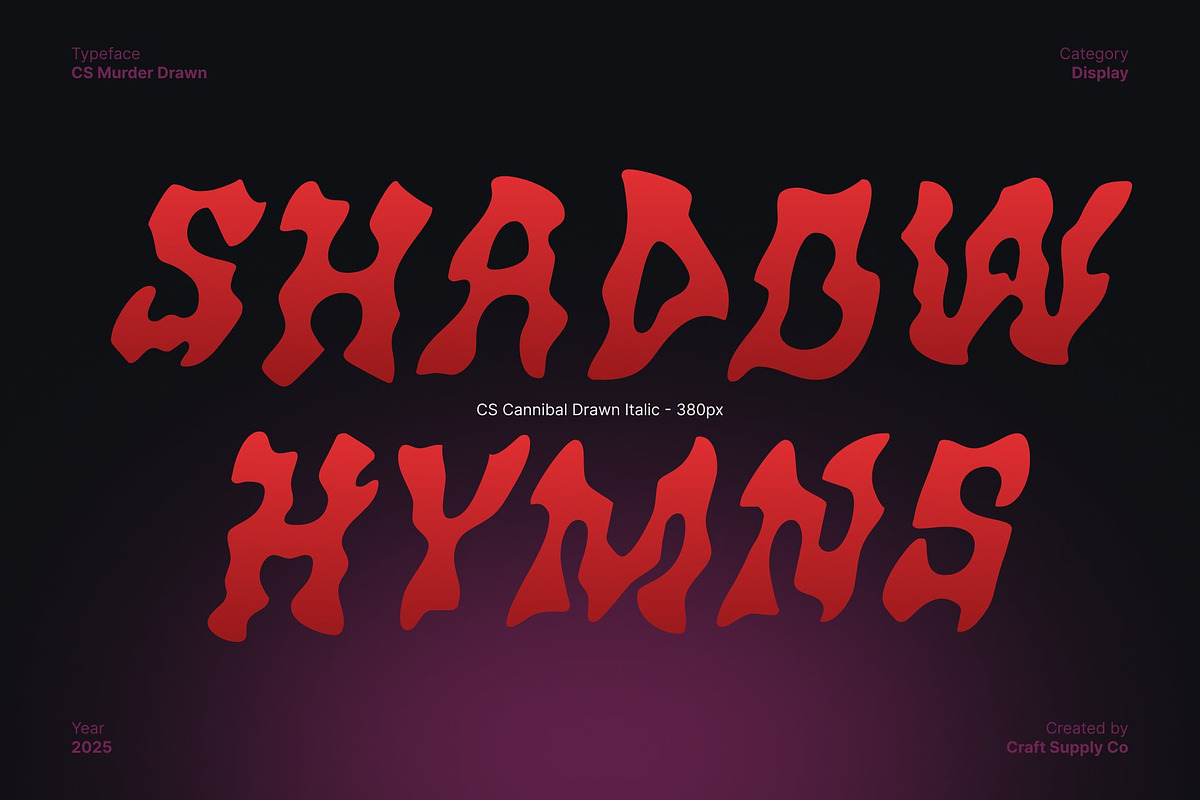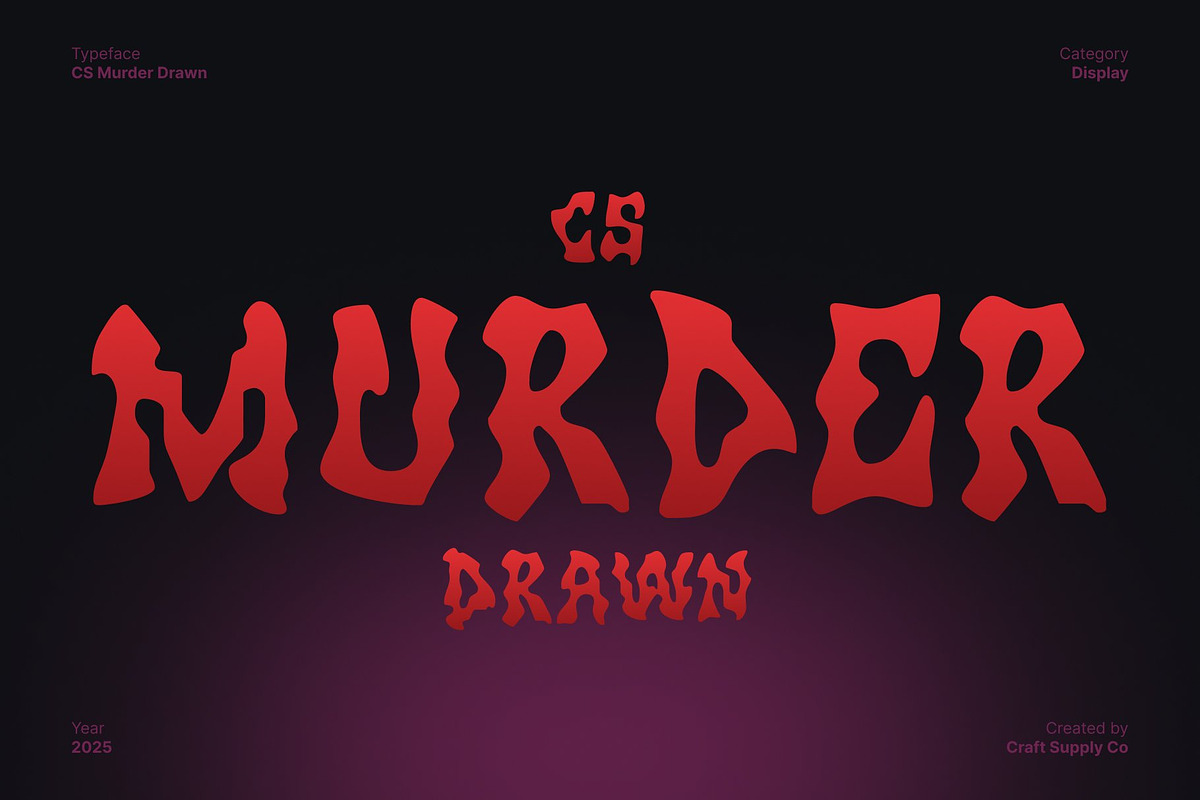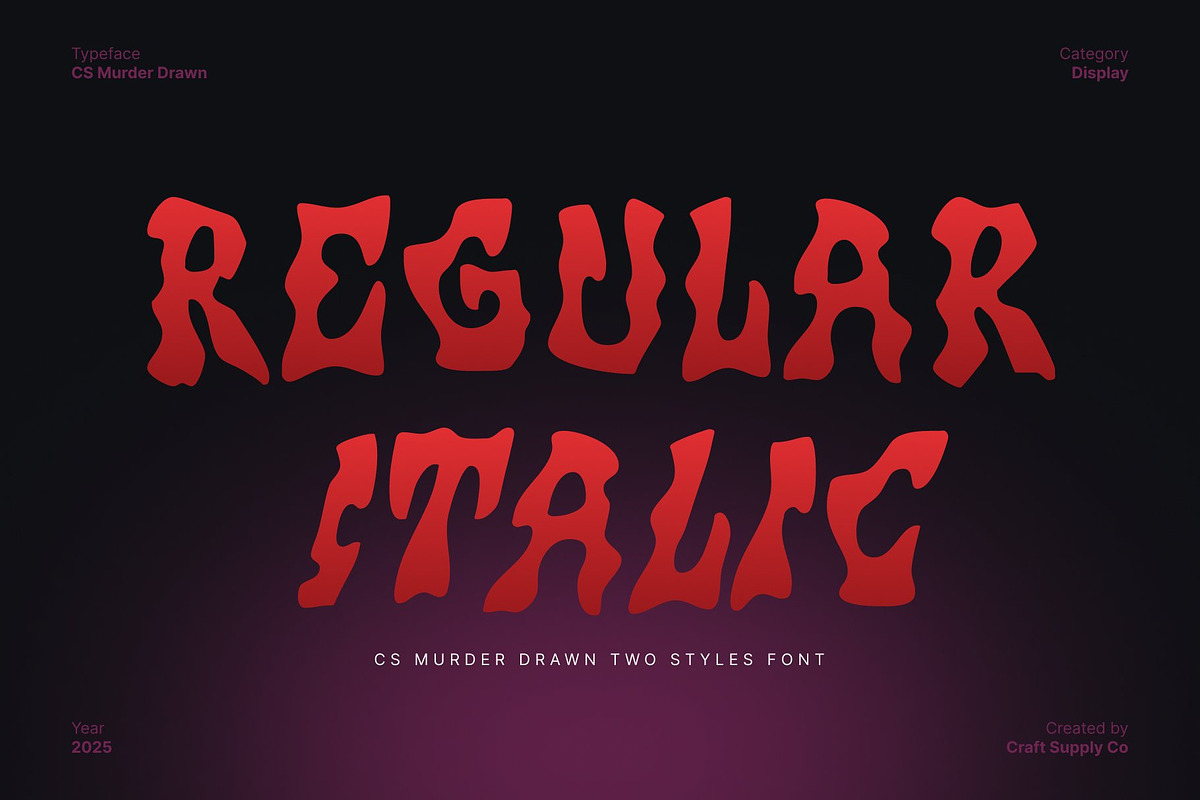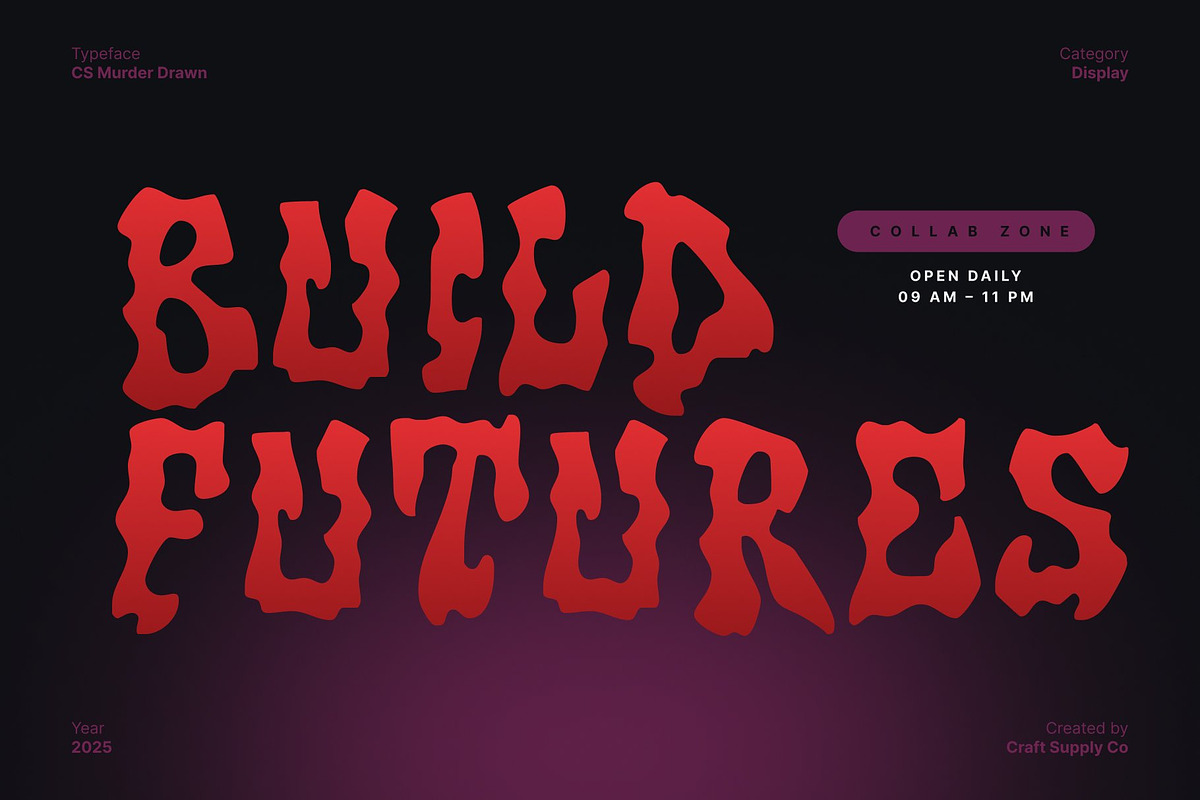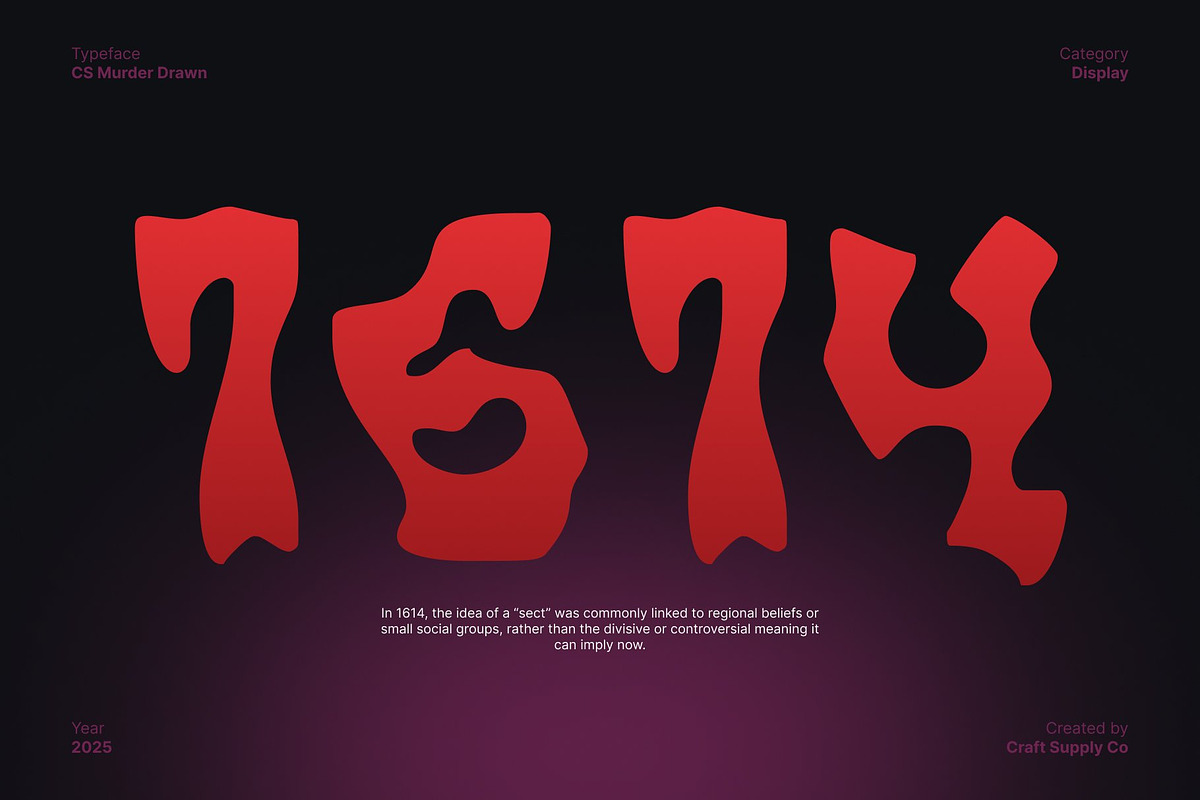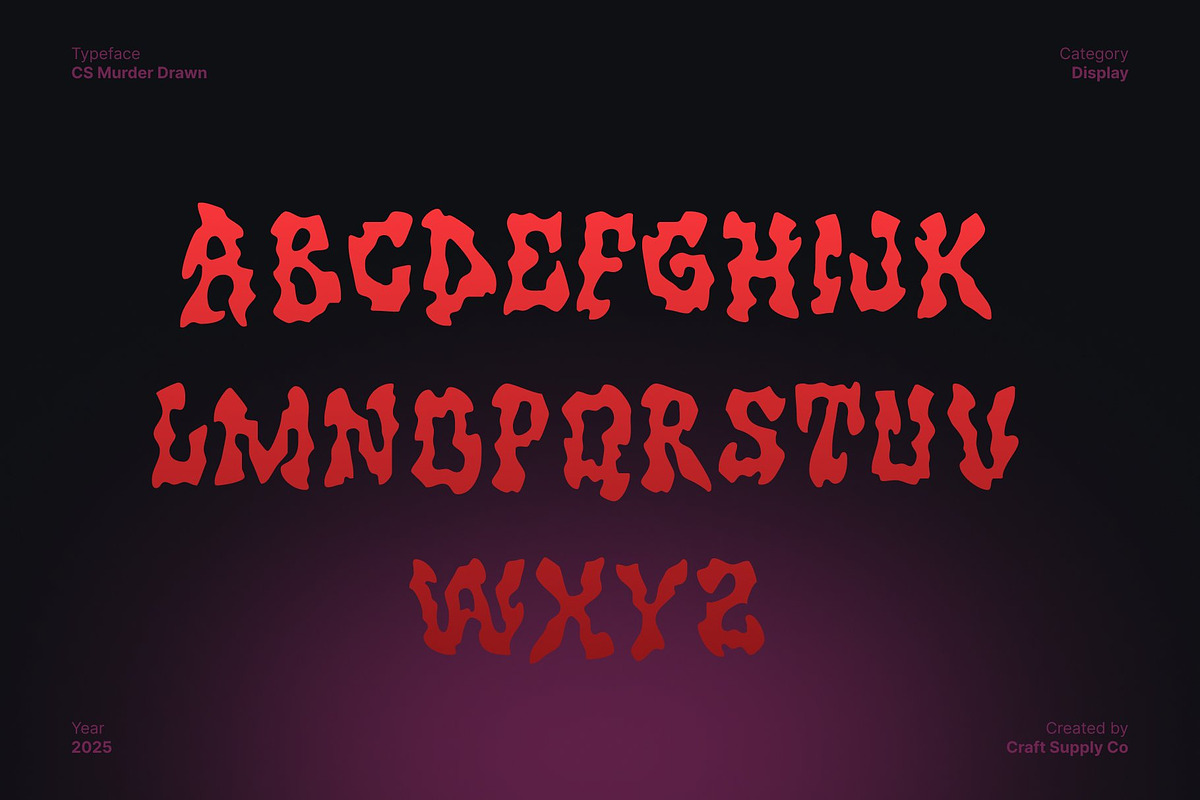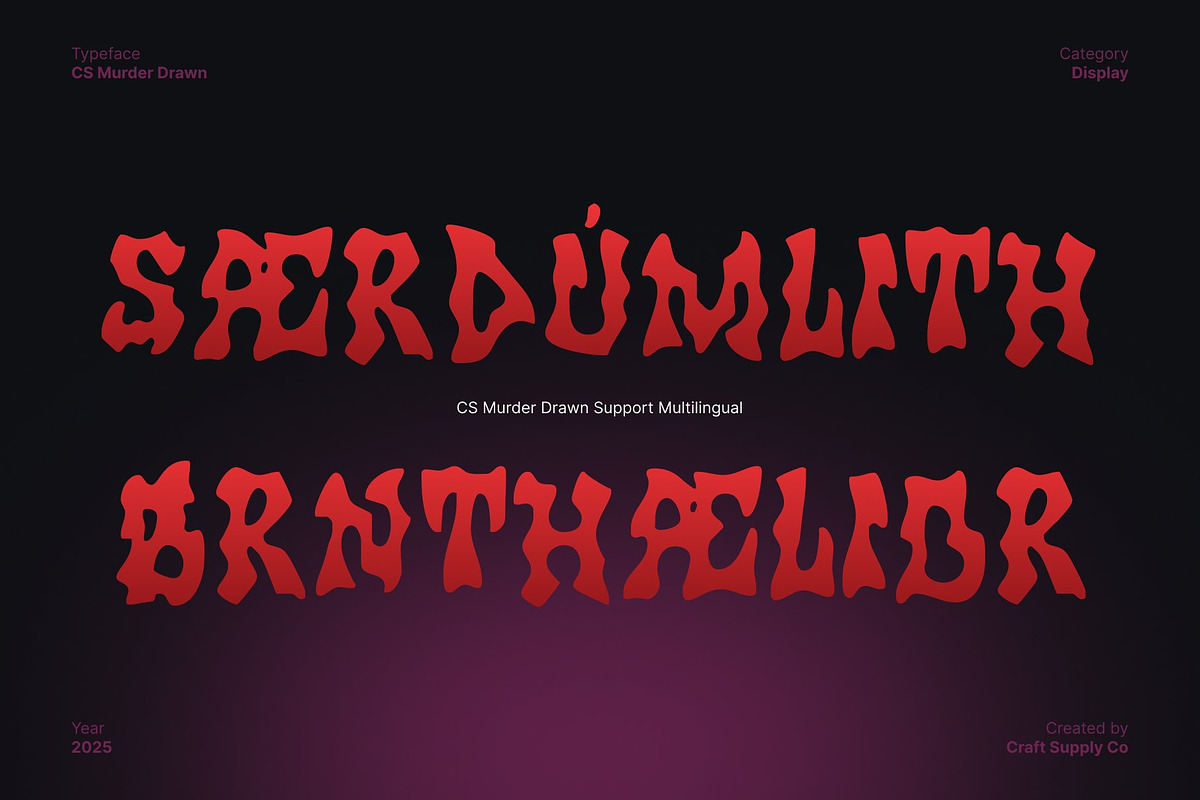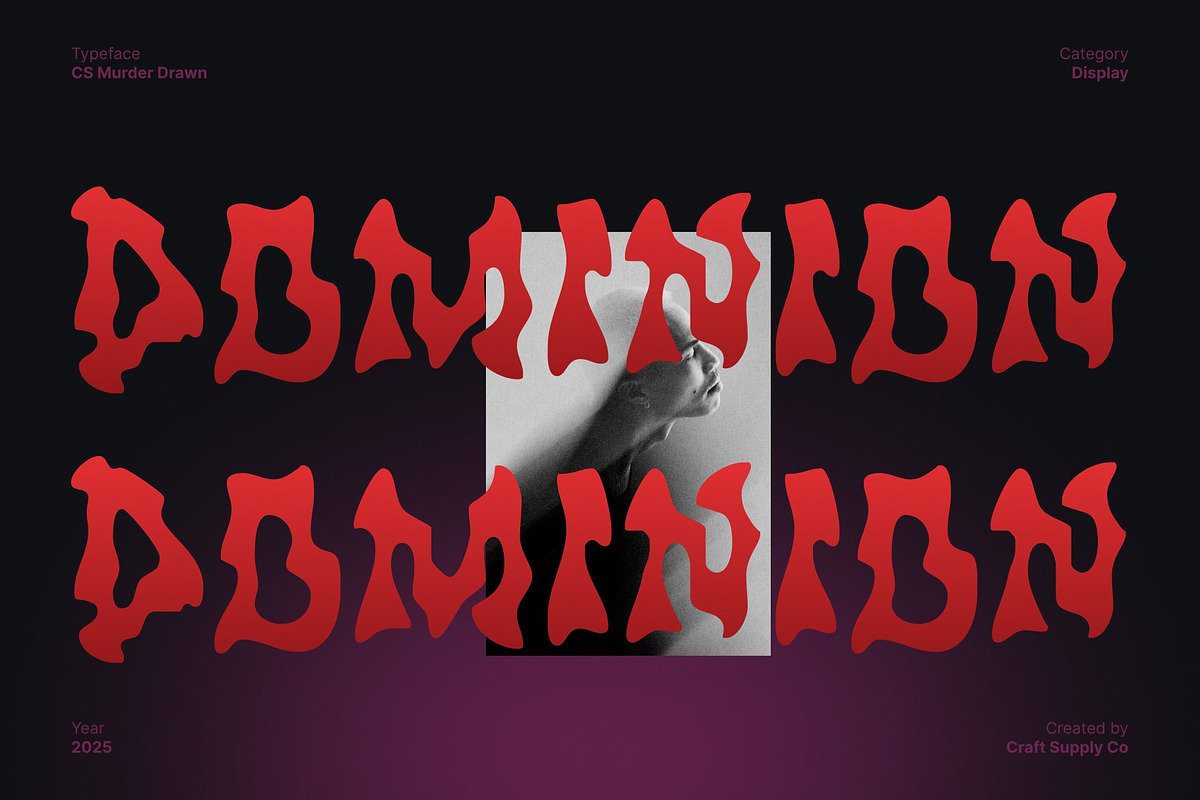
CS Murder Drawn
CS Murder Drawn – Black Metal Font with Etchy Hand-Drawn Texture
Aggressive, Dark Letterforms for Extreme Impact This is a black metal-inspired display font designed to project intensity and darkness. Its jagged, irregular shapes and sharp, chaotic strokes evoke a raw, rebellious energy. Perfect for designs that demand a bold, commanding presence, this font captures the spirit of extreme music and underground culture.
Hand-Drawn Texture for Expressive, Etchy Style The drawn effect adds a gritty, handcrafted texture that enhances the font’s rough and chaotic character. Each letter carries subtle imperfections that give it a visceral, edgy personality, making feel authentic, energetic, and strikingly unique.
Ideal for Busy, Serious, and Extreme Designs This font excels in high-intensity visual projects, from band logos and album covers to posters, merchandise, and alternative branding. Its bold forms remain legible in complex layouts while delivering a powerful and aggressive aesthetic.
A Typeface That Embodies Chaos and Rebellion By combining black metal aesthetics with hand-drawn artistry, creates a distinct typographic voice. Its etchy, irregular forms are perfect for designers seeking a font that communicates raw energy, individuality, and extreme expression. Ideal for music, edgy visual projects, or any design that wants to leave a dark, unforgettable impression.
- CS Murder Drawn Regular
- CS Murder Drawn Italic